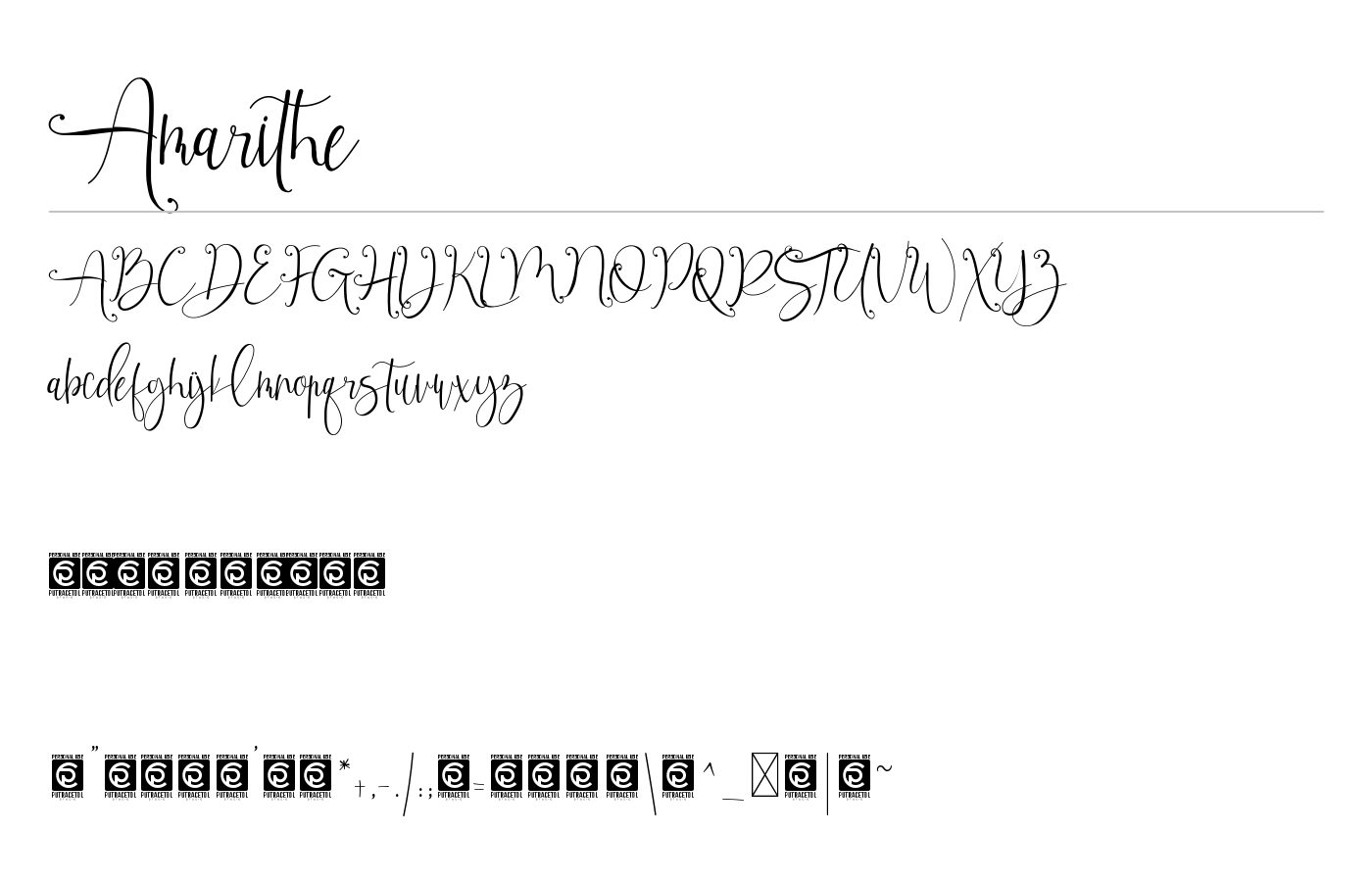
Amarithe is an elegant script font characterized by delicate, flowing strokes and graceful swashes, giving it a refined and artistic feel. Its thin weight and intricate letterforms make it perfect for luxury branding, wedding invitations, and sophisticated editorial design where a touch of romance and creativity is desired. This font works beautifully in headlines and decorative text, adding an airy and stylish charm to any project.
Amarithe Font
About Amarithe Font
| Font family | Amarithe Font |